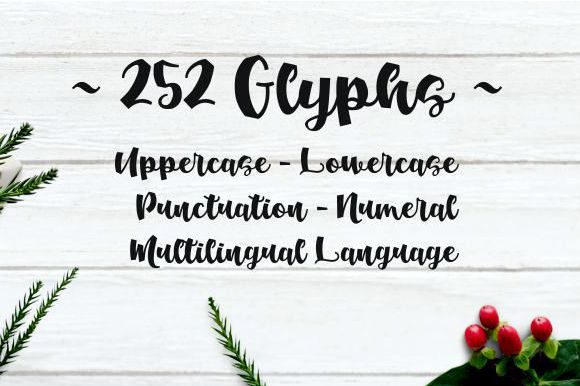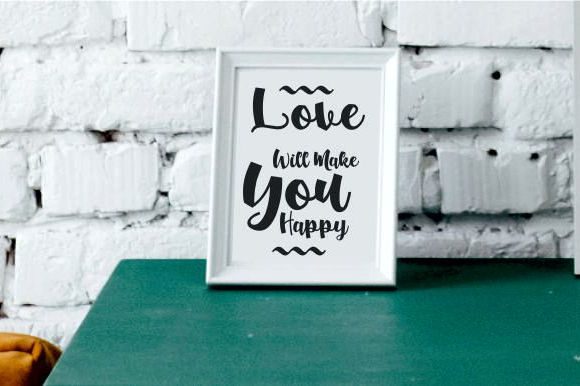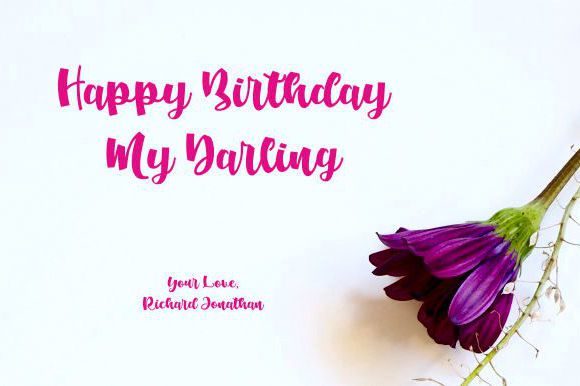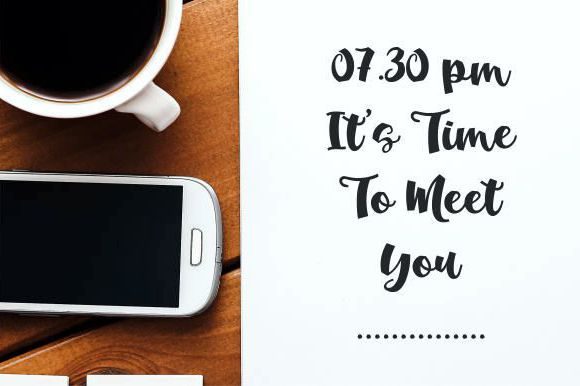
Introduction to Loveena Font
There’s nothing quite like the rush of creative excitement when you stumble upon the perfect design resource. You’re working on a project, and suddenly, a font catches your eye. It’s as if the words on your screen come alive, and your imagination runs wild with possibilities. For many designers, this moment is a game-changer. It’s when the entire project starts to take shape, and you know you’re on the right track.
One such game-changing font is the Loveena Font, a flowing handwritten font that adds an elegant touch to any project. With its incredibly distinct and timeless style, Loveena Font is perfect for designers looking to create spectacular designs. Whether you’re working on a logo, a poster, or a website, this high-quality font is sure to elevate your creative project.
Key Features of Loveena Font
- Unique, elegant script font with a transparent background, perfect for adding a touch of sophistication to your designs.
- Includes a comprehensive set of characters, including uppercase and lowercase letters, numbers, and punctuation marks.
- Perfect for use in logos, headings, and body text, adding a touch of elegance and sophistication to your creative project.
Honest Review: Loveena Font
As a designer, I’m always on the lookout for high-quality design resources to elevate my creative projects. Recently, I had the chance to try out the Loveena Font, and I’m excited to share my honest review.
- ✨ The Loveena Font has a beautiful, elegant design that’s perfect for headings and titles.
- ✨ The font has a transparent background, allowing for easy layering and customization.
- ⚠️ The font may not be suitable for body text, as it can be a bit too ornate for large blocks of text.
- ⚠️ Some users may find the font too similar to other, more popular fonts.
Overall, I’m impressed with the Loveena Font. While it may not be perfect for every design project, it’s a great option for designers looking for a high-quality, free font to add some elegance to their work. With a little creativity, the Loveena Font can be a valuable addition to any design arsenal.
Tips for Getting the Most Out of Loveena Font
For a high-quality design project, use the Loveena Font in conjunction with other design resources, such as graphics and images. Experiment with different font sizes, colors, and alignments to create a visually appealing design. You can also use the Loveena Font for free download and customize it to suit your creative project needs.
The Loveena Font is ideal for a variety of design projects, including brochures, flyers, and business cards. It’s also suitable for use in social media graphics, presentations, and websites. With its high-quality design and transparent background, the Loveena Font is a versatile design resource for any creative project.
Alternatives to Loveena Font
Aurora Script is a beautiful, high-quality font suitable for creative projects requiring a touch of elegance. It’s perfect for wedding invitations, event promotions, or any design where you want to convey a sense of sophistication. With a transparent background, it’s easy to overlay on any image or background.
Compared to Loveena Font, Aurora Script has a more refined and luxurious feel, making it ideal for high-end designs. It’s available for free download, making it an excellent alternative for designers on a budget.